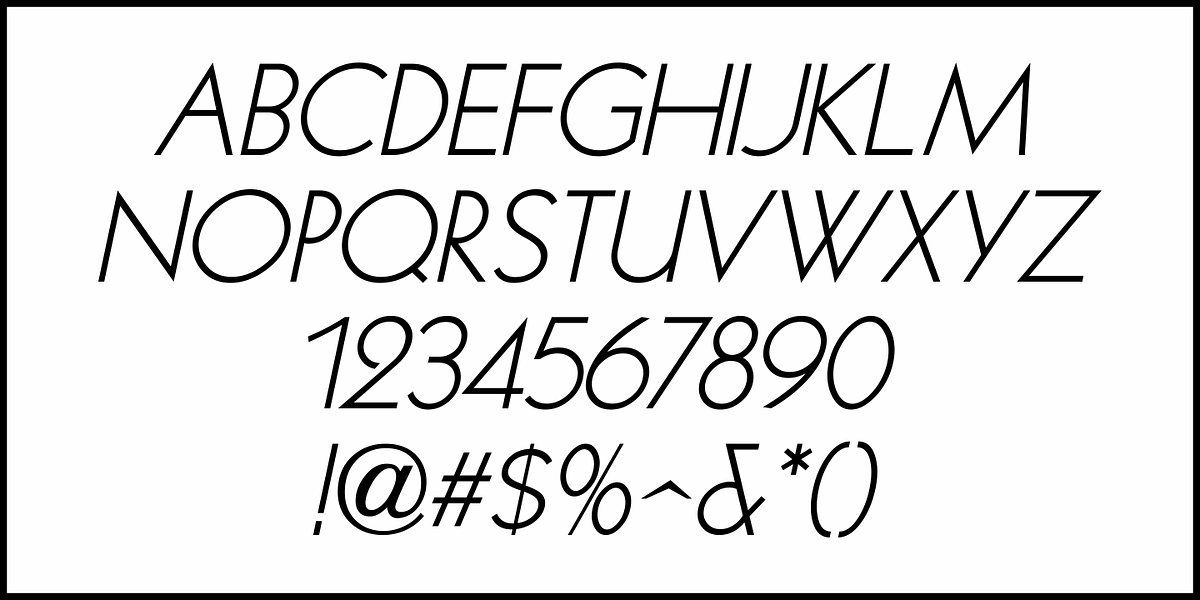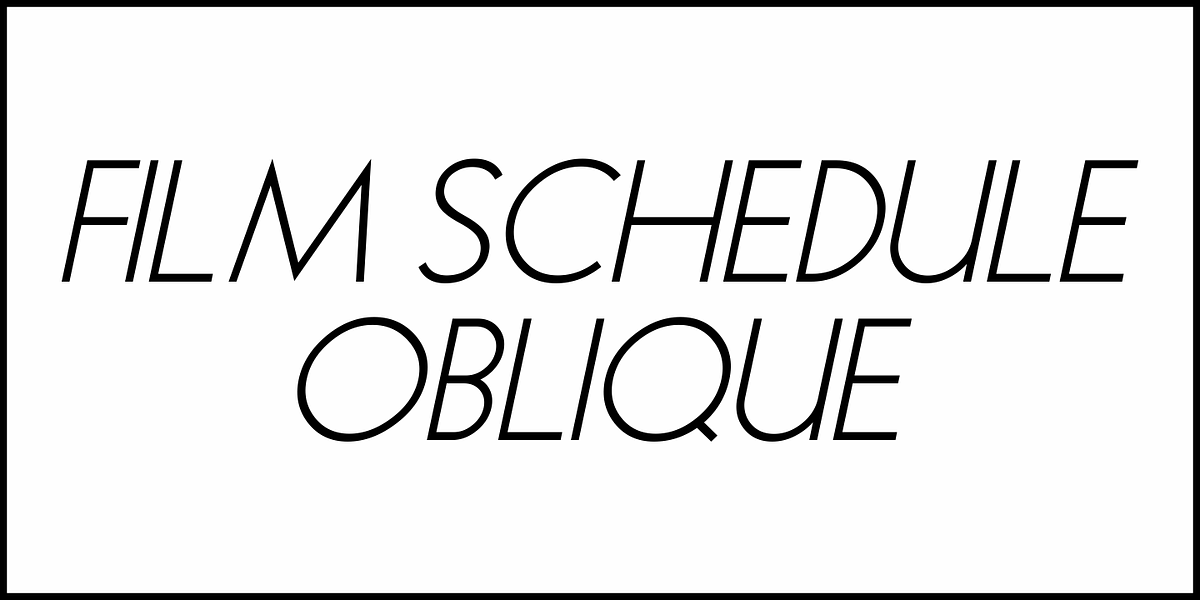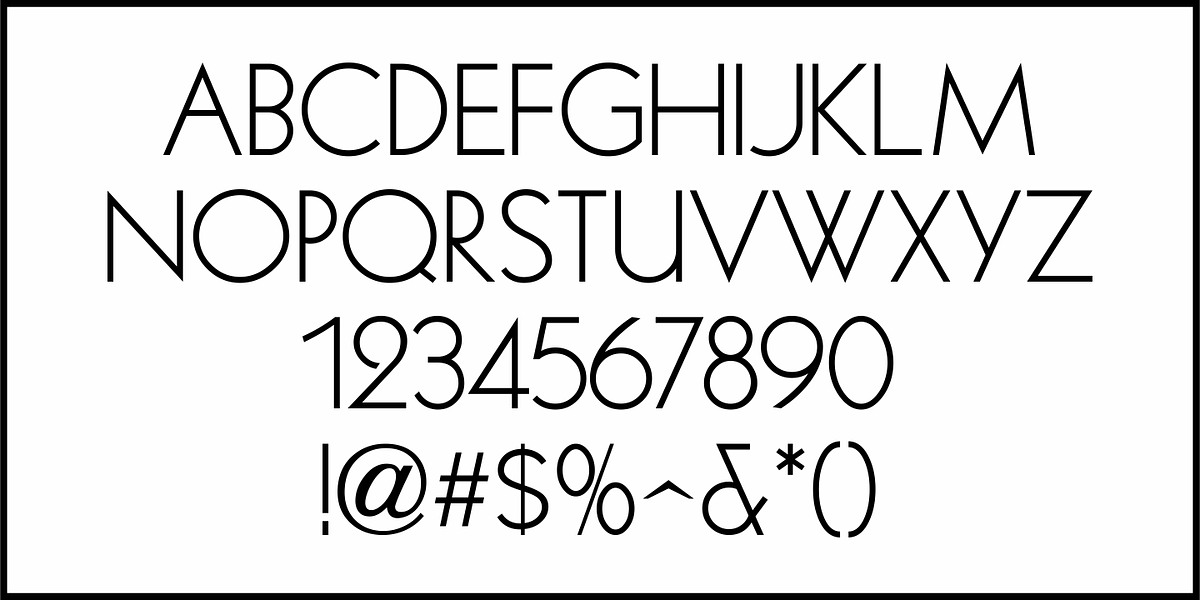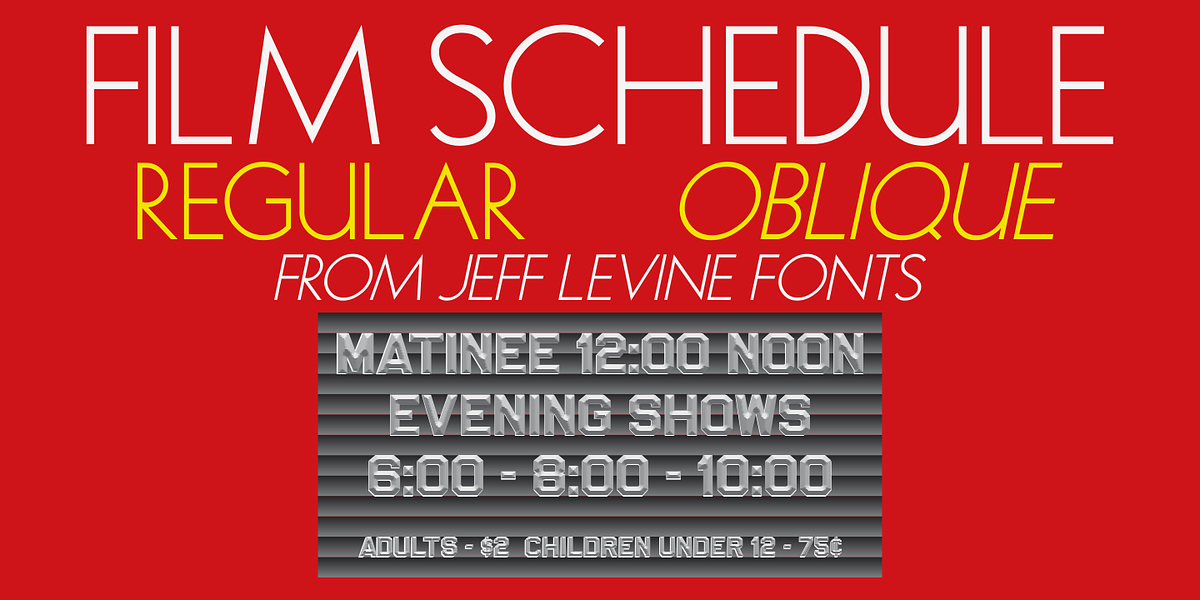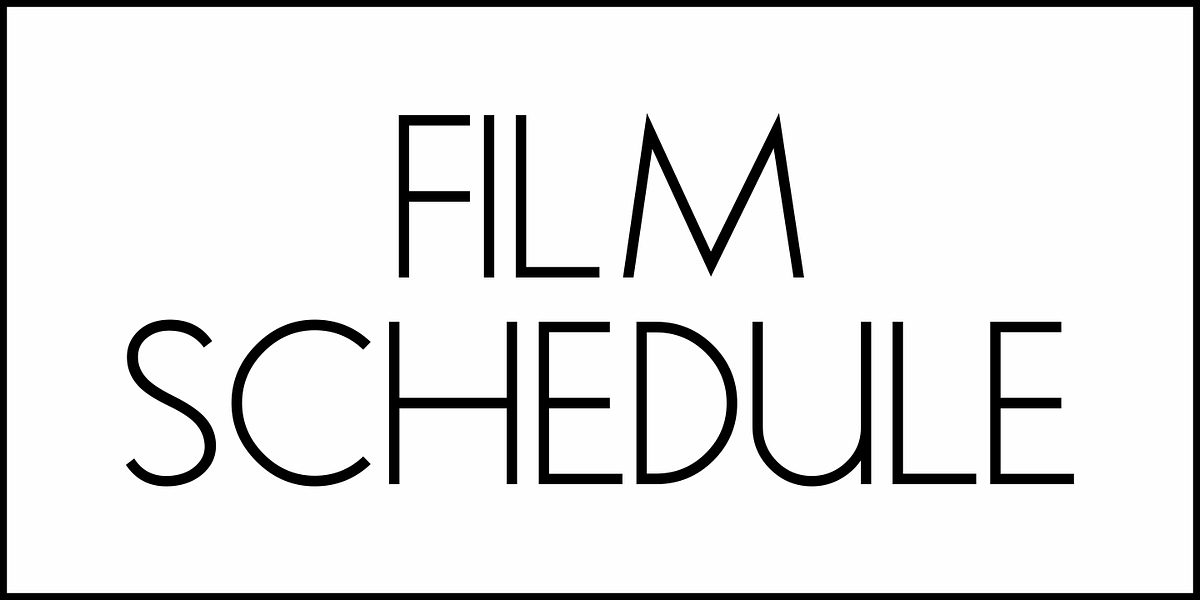
Film Schedule JNL
In the June 16, 1930 issue of The Film Daily is a series of ads for Universal Pictures with text set in a thin, monoline sans serif design with Art Deco influences.
This formed the basis for Film Schedule JNL, which is available in both regular and oblique versions.